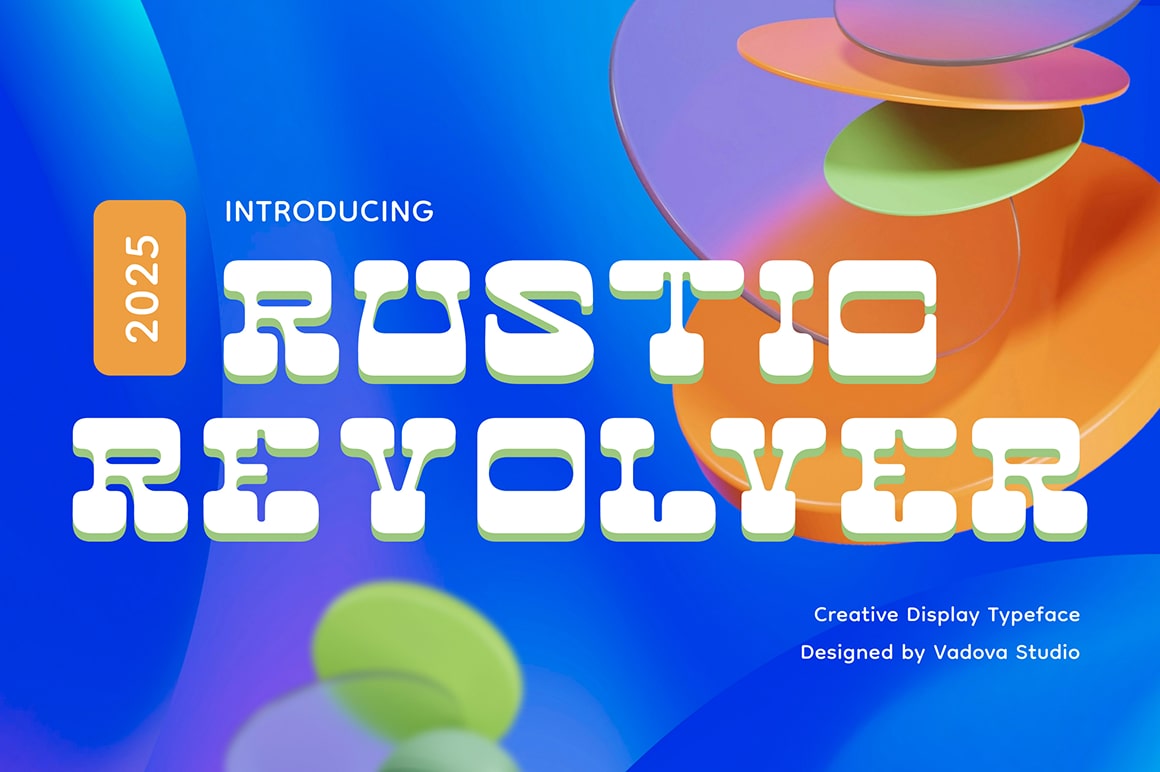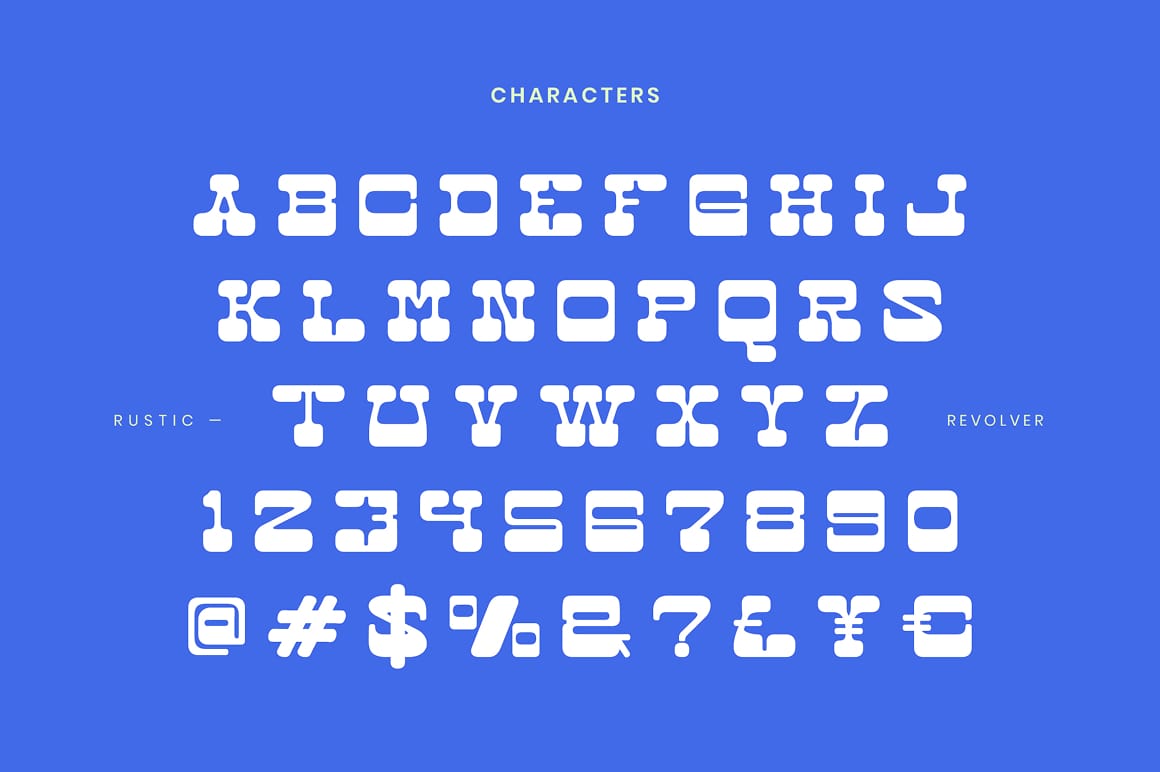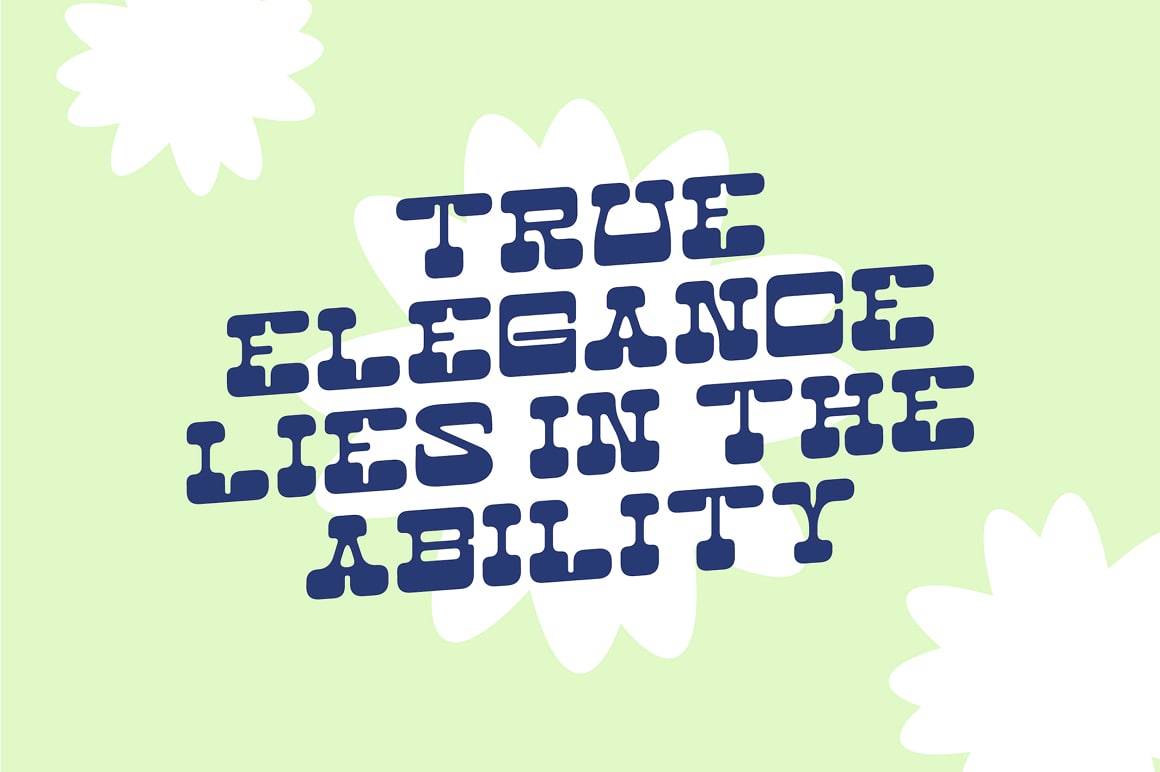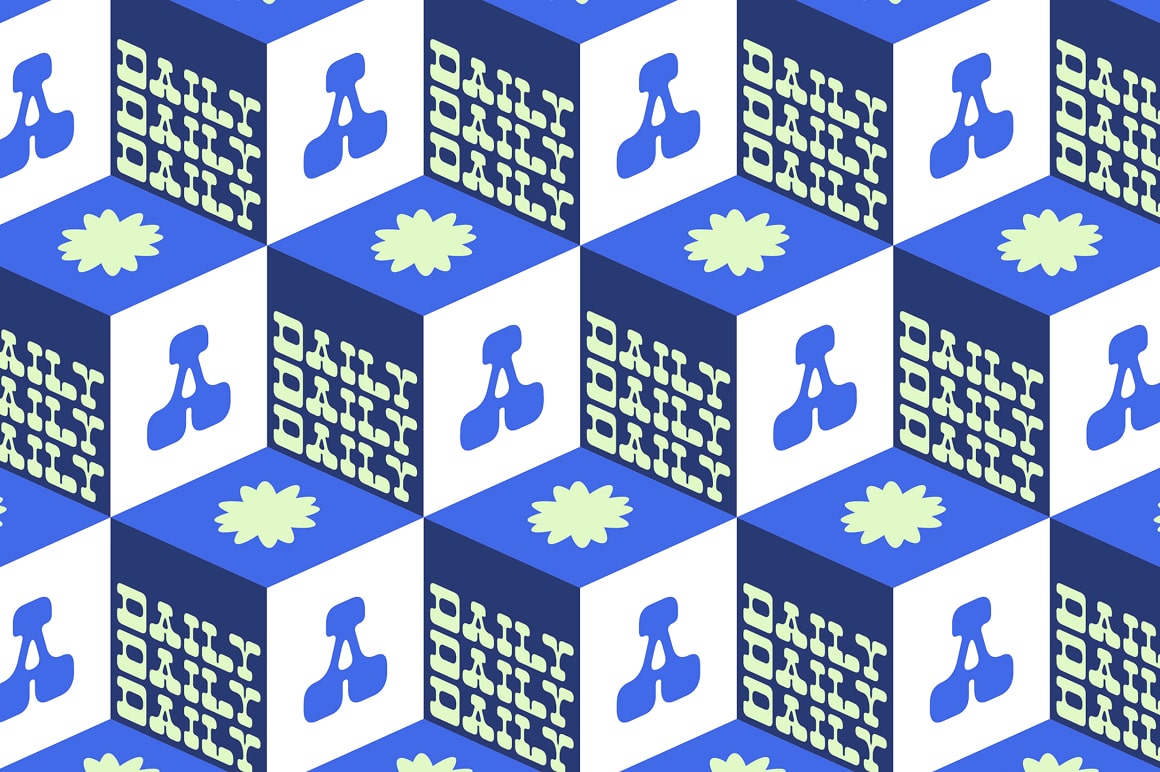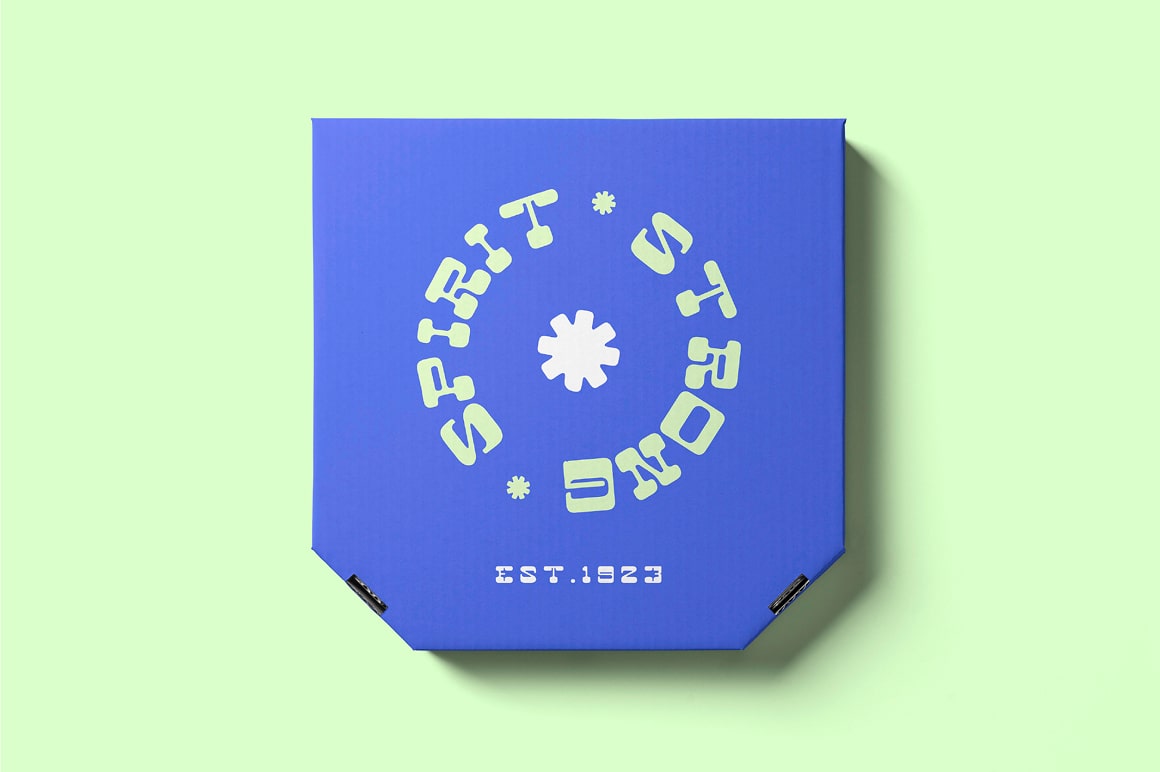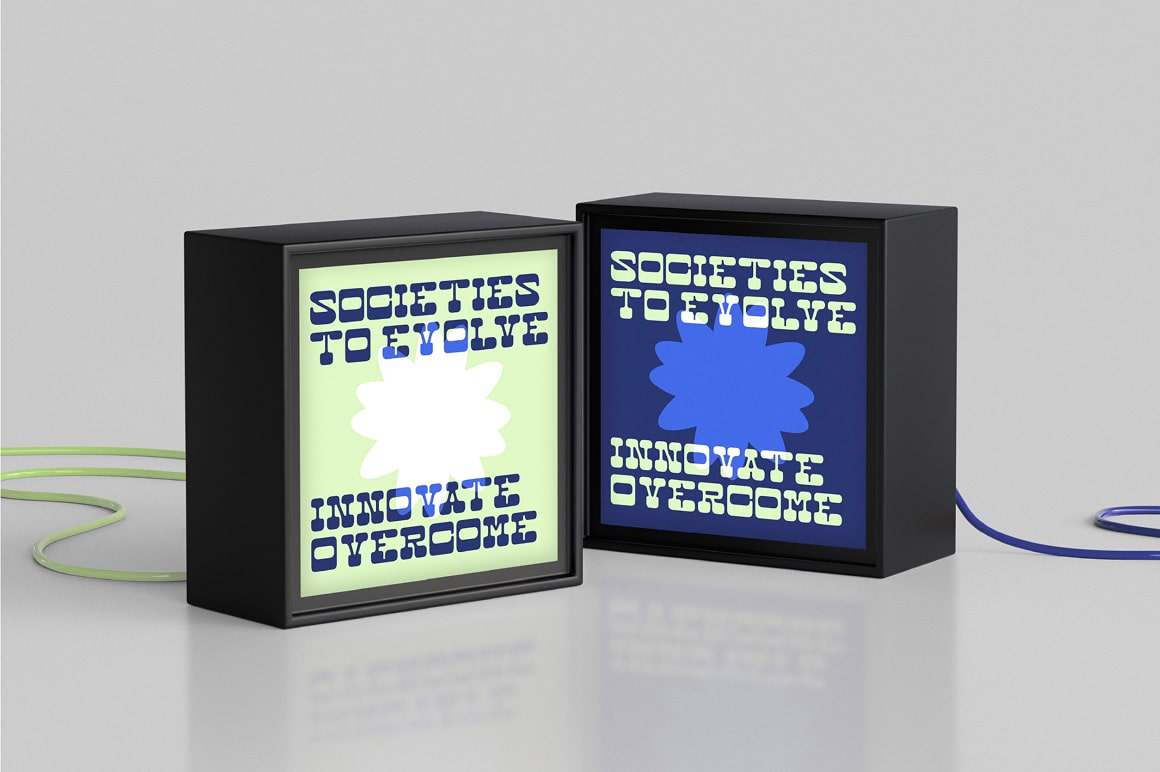
Rustic Revolver is a bold and creative display font packed with retro flair and modern playfulness. With its chunky forms, rounded edges, and funky letter shapes, this typeface is perfect for vibrant posters, artistic branding, eye-catching headlines, and colorful experimental designs. Rustic Revolver evokes a nostalgic yet fresh energy, ideal for projects that demand attention and creative freedom. Make your visuals pop with a typographic voice that’s fun, fearless, and full of personality.